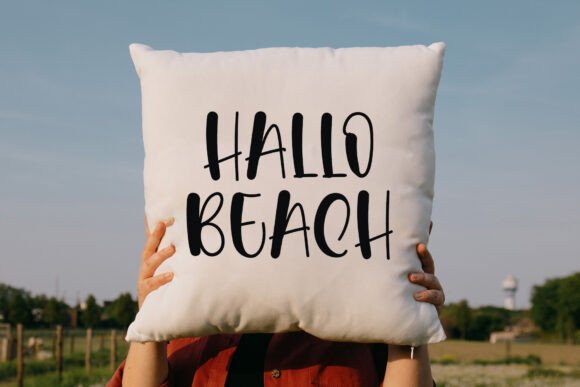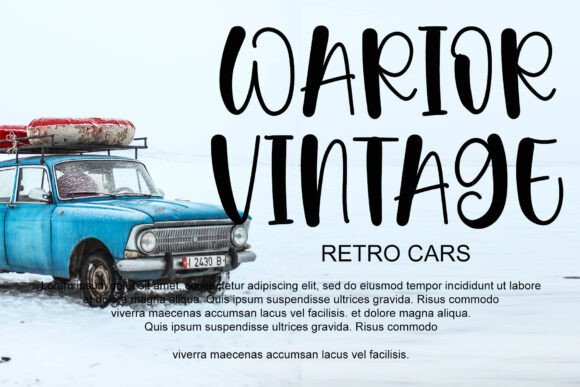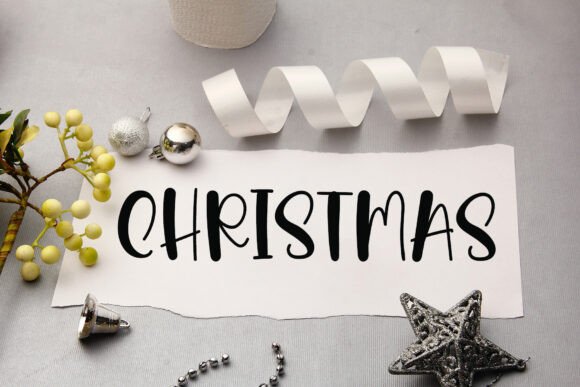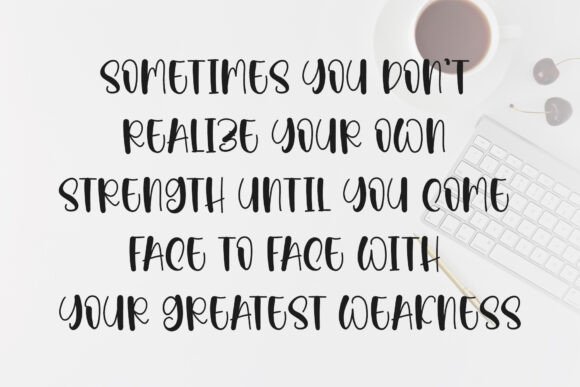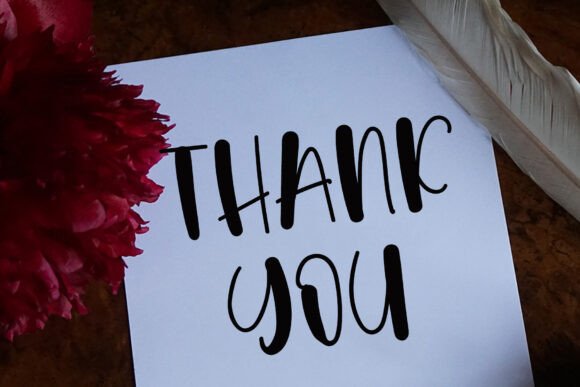
When Words Become Art
As a designer, there’s nothing quite like the thrill of bringing a new project to life. It’s that moment when a blank canvas transforms into a vibrant world of imagination, and the words on the page start to dance with personality. For me, that moment happens whenever I reach for a special font – one that adds a dash of whimsy and warmth to my designs. That’s exactly what I discovered with Awesome Handwriting Font, a delightful script that’s perfect for making any text shine.
This charming font is designed to evoke a sense of joy and camaraderie, making it an ideal choice for children’s books, party invitations, and any project that needs a touch of warmth and cheerfulness. For designers, Awesome Handwriting Font is a valuable tool that can add a personal touch to their work, setting their projects apart from the ordinary.
Awesome Handwriting Font Key Features
- Unique Characteristics: This font features a distinctive, cursive handwriting style with varying line widths and subtle flair, giving it a personal and emotive touch.
- Language Support: Awesome Handwriting Font supports a wide range of languages, including Latin, Cyrillic, and Greek alphabets, making it suitable for international applications.
Review of “Awesome Handwriting Font”
Overall, I’m pretty pleased with “Awesome Handwriting Font”. It’s a great addition to any project that requires a more personal touch. ✨ The font’s organic feel and subtle imperfections give it a lot of character, making it perfect for handwritten quotes, titles, and even entire documents.
- It’s highly legible, even at smaller font sizes.
- The font is incredibly versatile and can be used in a variety of contexts, from children’s books to wedding invitations.
- The “rough” texture of the font gives it a unique, handmade feel that’s hard to replicate with other fonts.
That being said, there are a few limitations to consider. ⚠️ The font is not as consistent as I would like, with some letters looking more “handwritten” than others. Additionally, the font is not optimized for digital use, which can result in a slightly fuzzy appearance on screens.
Overall, I would definitely recommend “Awesome Handwriting Font” to anyone looking for a unique and personal touch in their design projects. While it may not be perfect, its strengths far outweigh its weaknesses, making it a valuable addition to any font collection.
Common Use Cases for Awesome Handwriting Font
The Awesome Handwriting Font is perfect for:
Creating custom invitations and event materials, such as wedding invitations and birthday cards. Designing digital products, such as ebooks and courses, that require a personal touch. Creating social media graphics and ads that stand out from the crowd.